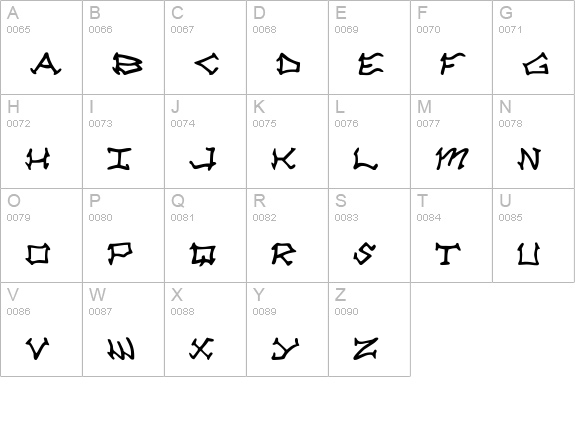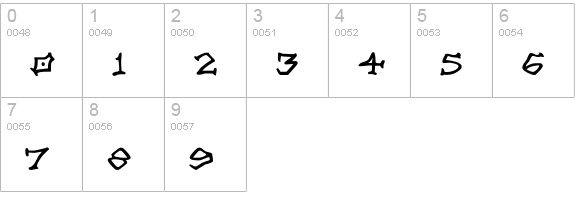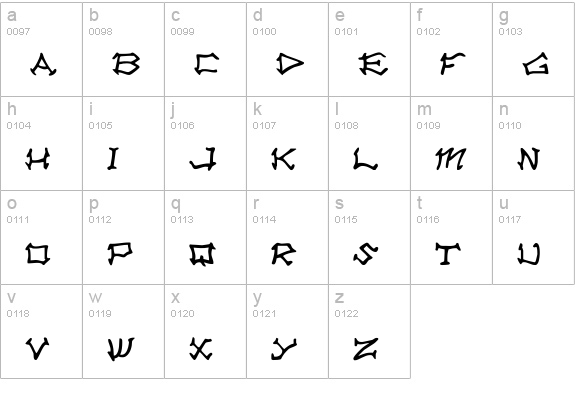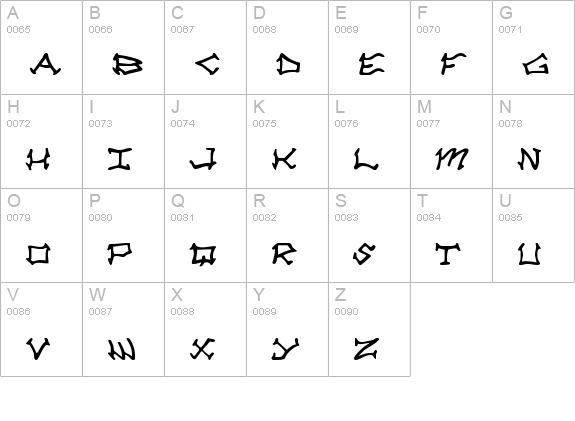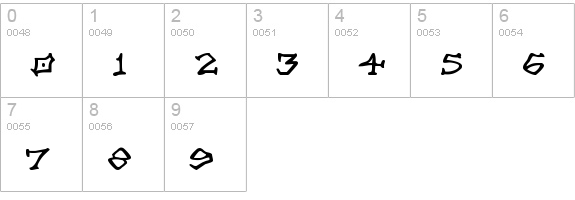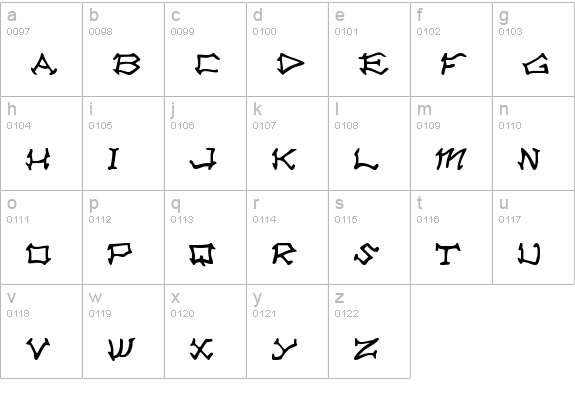
Introducing Rad Zad, a stunning font that combines modern aesthetics with a touch of edgy sophistication. Designed for those seeking a bold statement, this typeface exudes confidence and creativity. With its unique blend of sharp angles and smooth curves, Rad Zad captures attention and leaves a lasting impression. Its versatility makes it perfect for a wide range of projects, from logo design to branding, advertising, and more. Whether you're looking to make a powerful statement or add a touch of flair to your work, Rad Zad has you covered. But what makes Rad Zad truly remarkable is that it is not just any font – it's free! That's right, you can now download this exceptional typeface at no cost, exclusively at FontsMarket.com. We believe that great design should be accessible to all, and Rad Zad embodies this ethos perfectly. So why wait? Elevate your designs with the captivating charm of Rad Zad. Download it now and let your creativity soar.